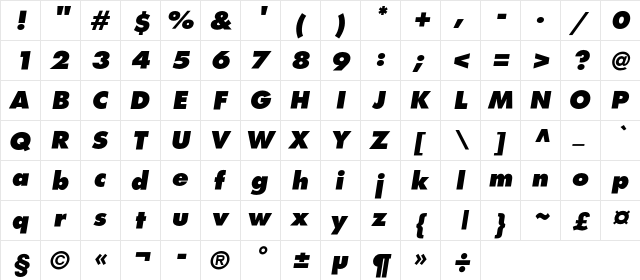
AGFatumExtraBoldC Italic
Design Context for AGFatumExtraBoldC Typeface
AGFatumExtraBoldC takes a measured approach to typography — its balanced proportions and neutral character make it a reliable workhorse for both digital and print work. The dynamic lean of this cut emphasises speed and emphasis in any layout. The heavy weight commands attention and anchors typographic hierarchies.
Pro Tip: Try AGFatumExtraBoldC for annotation and caption copy alongside an upright companion — the contrast in angle creates a dynamic but ordered typographic system.